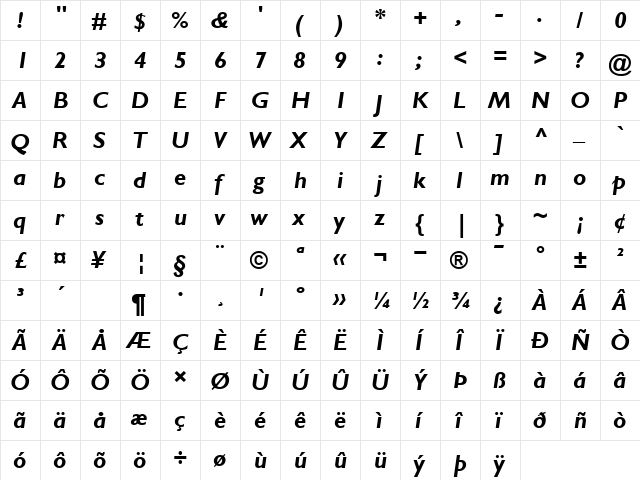
GillSans BoldItalic Font Preview
Design Context for GillSans Typeface
GillSans takes a measured approach to typography — its balanced proportions and neutral character make it a reliable workhorse for both digital and print work. The dynamic lean of this cut emphasises speed and emphasis in any layout. The heavy weight commands attention and anchors typographic hierarchies.
Pro Tip: Try GillSans for annotation and caption copy alongside an upright companion — the contrast in angle creates a dynamic but ordered typographic system.